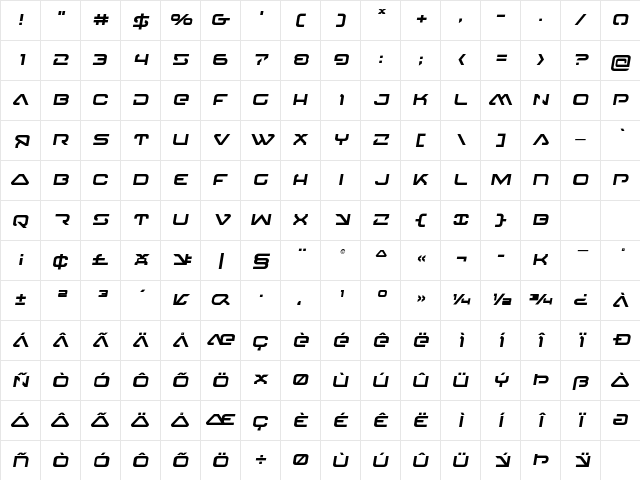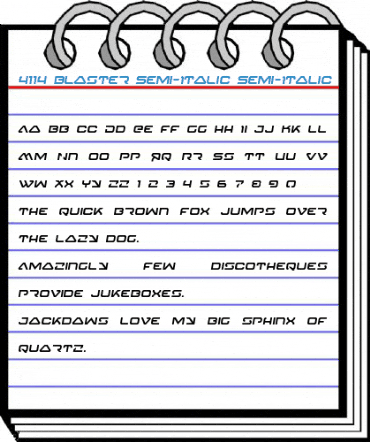
Complete 4114 Blaster Semi-Italic glyph index. Displaying only characters natively supported by 4114 Blaster Semi-Italic font.
4114 Blaster Semi-Italic is a composed and adaptable typeface that performs quietly and consistently across a wide range of design contexts. The slanted form adds forward momentum and visual energy.